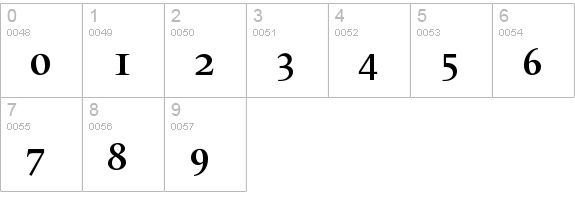
LeMondeLivre Demi Small Caps is a sub-bold, structured variant in the LeMondeLivre typeface family \xE2\x80\x94 well suited to sub-headlines and emphasised passages.
LeMondeLivre Demi Small Caps font is a sophisticated and elegant typeface that exudes a timeless charm. With its sleek and slender letterforms, this font is perfect for adding a touch of refinement to any design project. The small caps feature adds a unique and stylish element to the font, making it stand out among other typefaces. The Demi weight gives it a bold and commanding presence, making it suitable for headlines, titles, and branding materials. What sets LeMondeLivre Demi Small Caps font apart is not only its impeccable design but also the fact that it is available for free. You read that right - this stunning font can be freely downloaded at FontsMarket.com, allowing designers, creatives, and enthusiasts alike to utilize its beauty without any cost. Whether you are working on a print project, a website design, or even a branding campaign, LeMondeLivre Demi Small Caps font is a versatile choice that will elevate your work to new heights. Its legibility ensures that your message will be conveyed with clarity, while its refined aesthetic adds a touch of sophistication. Download LeMondeLivre Demi Small Caps font today from FontsMarket.com and unlock the potential of this exquisite typeface. Embrace the freedom to create visually stunning designs without any limitations. With LeMondeLivre Demi Small Caps font, your projects will truly shine and leave a lasting impression on your audience.